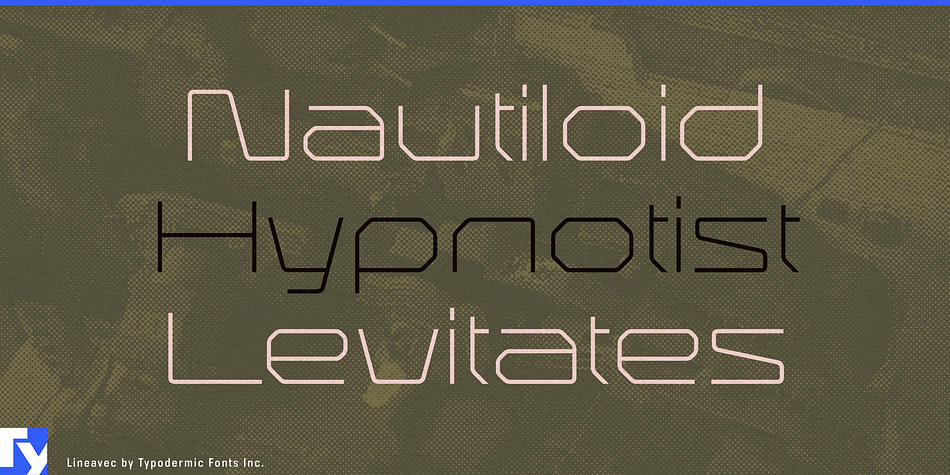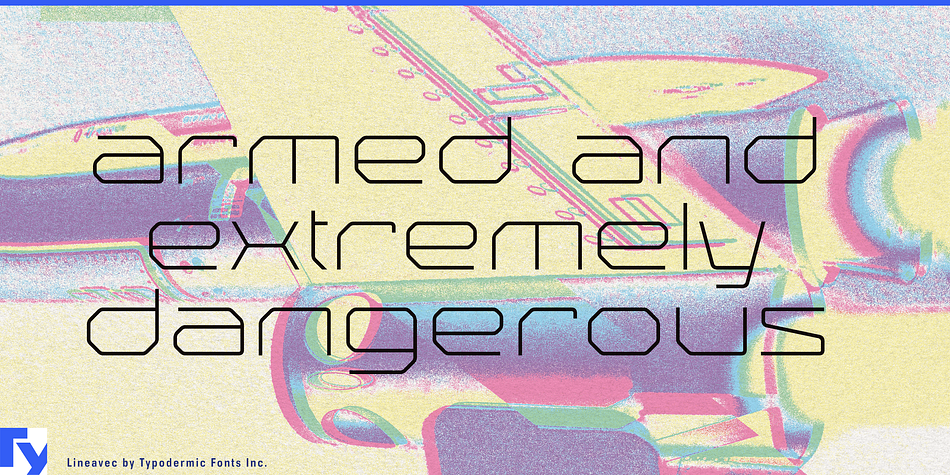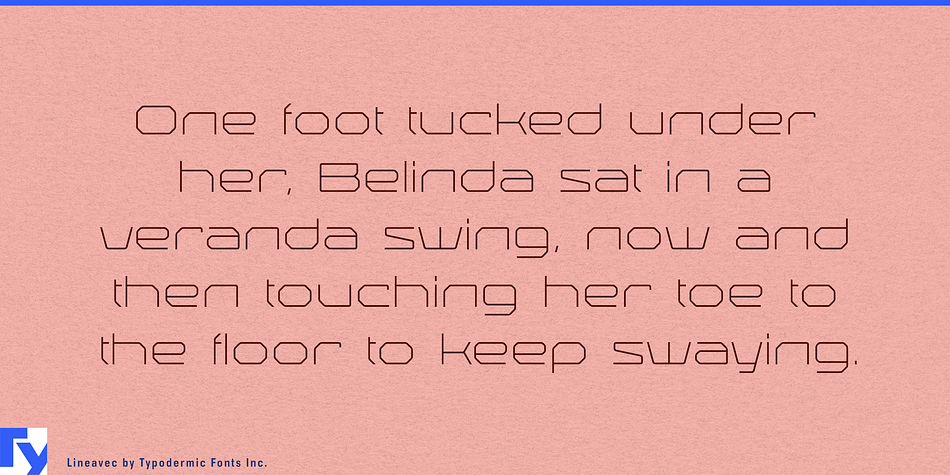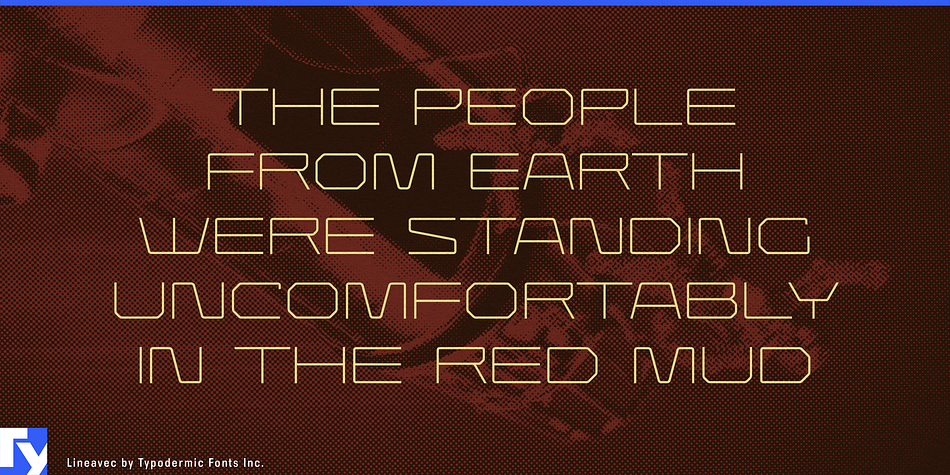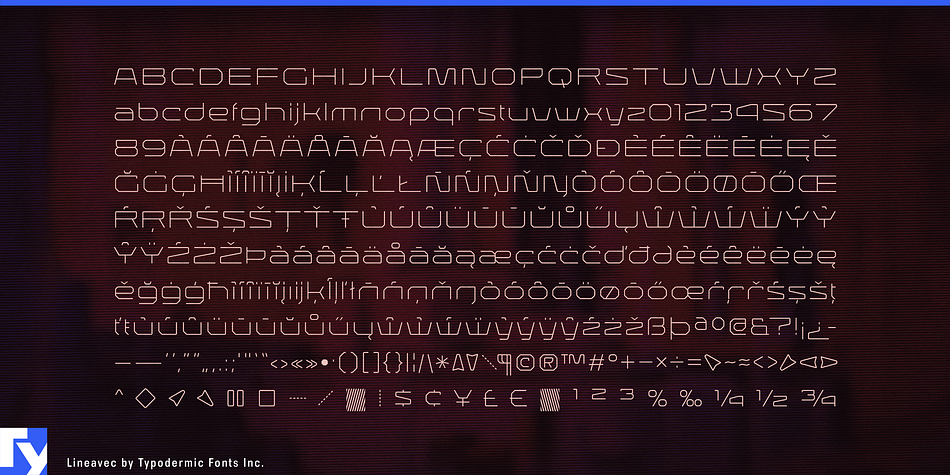
Lineavec is a display sans font published by Typodermic Fonts Inc.
Lineavec is a futuristic typeface that is precise, wide, and light. It brings to mind vector arcade games, lasers, and circuit board traces. Give your message a sense of interstellar distinctiveness. Most Latin-based European writing systems are supported, including the following languages. Afaan Oromo, Afar, Afrikaans, Albanian, Alsatian, Aromanian, Aymara, Bashkir (Latin), Basque, Belarusian (Latin), Bemba, Bikol, Bosnian, Breton, Cape Verdean, Creole, Catalan, Cebuano, Chamorro, Chavacano, Chichewa, Crimean Tatar (Latin), Croatian, Czech, Danish, Dawan, Dholuo, Dutch, English, Estonian, Faroese, Fijian, Filipino, Finnish, French, Frisian, Friulian, Gagauz (Latin), Galician, Ganda, Genoese, German, Greenlandic, Guadeloupean Creole, Haitian Creole, Hawaiian, Hiligaynon, Hungarian, Icelandic, Ilocano, Indonesian, Irish, Italian, Jamaican, Kaqchikel, Karakalpak (Latin), Kashubian, Kikongo, Kinyarwanda, Kirundi, Kurdish (Latin), Latvian, Lithuanian, Lombard, Low Saxon, Luxembourgish, Maasai, Makhuwa, Malay, Maltese, Māori, Moldovan, Montenegrin, Ndebele, Neapolitan, Norwegian, Novial, Occitan, Ossetian (Latin), Papiamento, Piedmontese, Polish, Portuguese, Quechua, Rarotongan, Romanian, Romansh, Sami, Sango, Saramaccan, Sardinian, Scottish Gaelic, Serbian (Latin), Shona, Sicilian, Silesian, Slovak, Slovenian, Somali, Sorbian, Sotho, Spanish, Swahili, Swazi, Swedish, Tagalog, Tahitian, Tetum, Tongan, Tshiluba, Tsonga, Tswana, Tumbuka, Turkish, Turkmen (Latin), Tuvaluan, Uzbek (Latin), Venetian, Vepsian, Võro, Walloon, Waray-Waray, Wayuu, Welsh, Wolof, Xhosa, Yapese, Zapotec Zulu and Zuni.